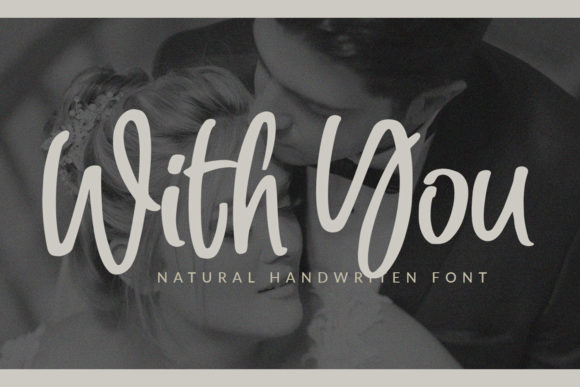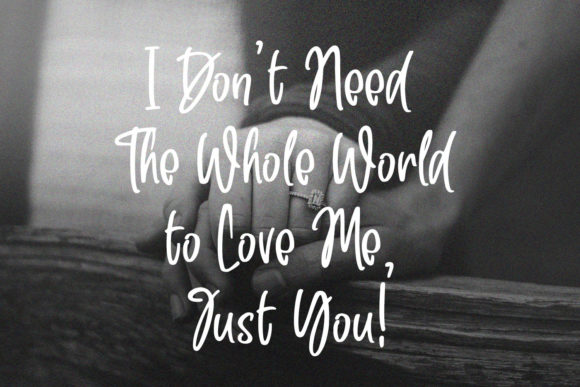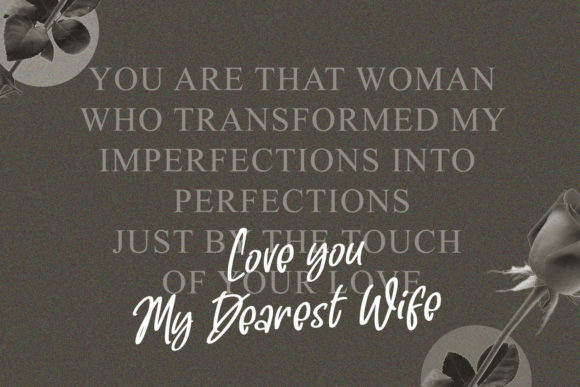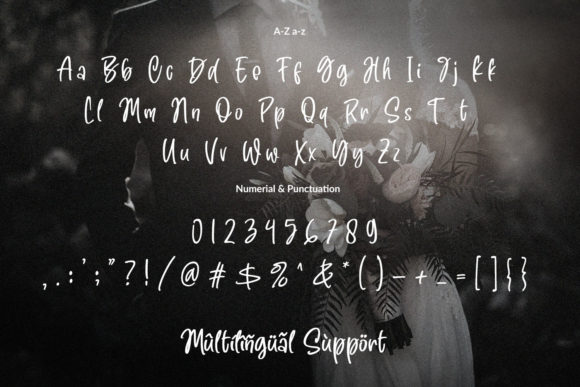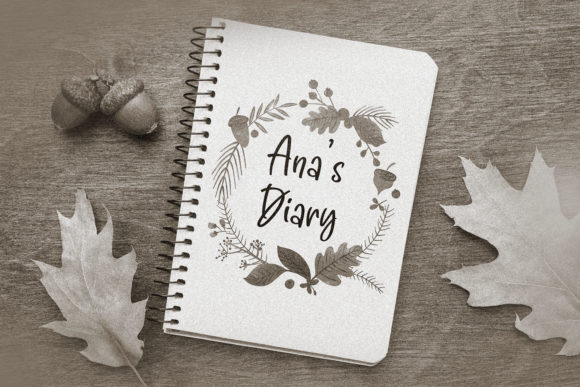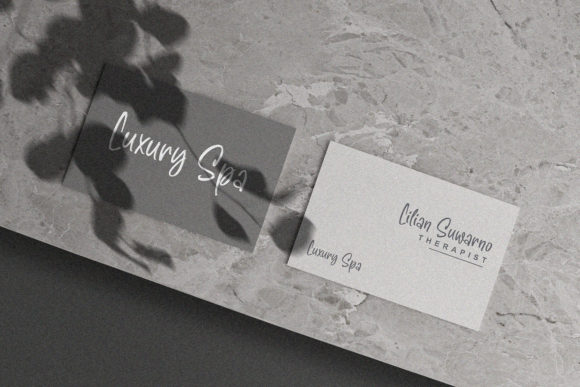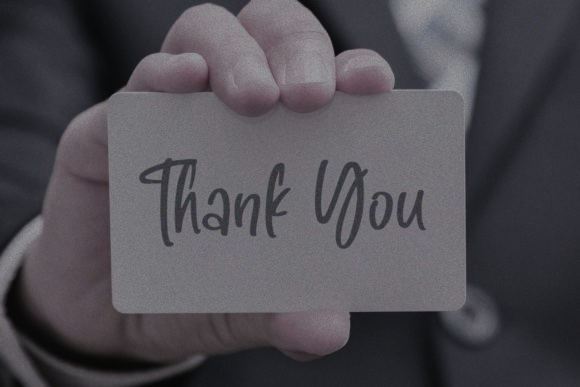
With You Font
About With You Font
With You is a relaxed, paint brushed handwritten font. Simple but with a strong visual effect, this font will instantly make your creation more appealing than any others.